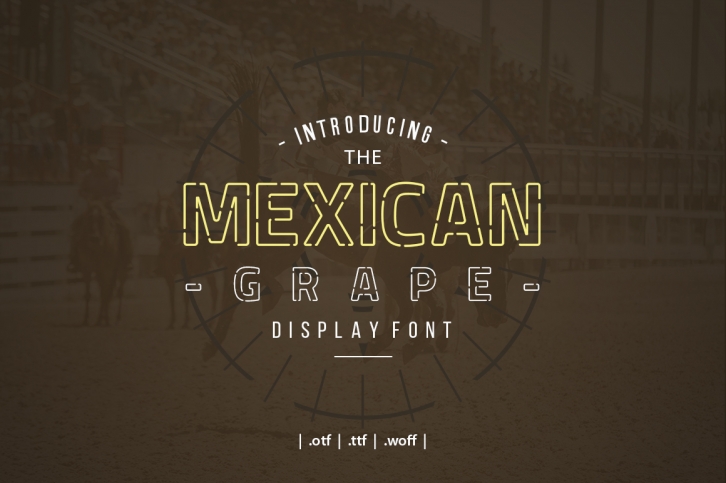
Mexican Grape Display Font Download
Mexican Grape Display is a gorgeous font that was realeased on September 22, 2018. The font can be used in many style contexts and design environments. Perfect for invitations, magazines, websites, logos, and more! It was designed by yantodesign and the file size is 17.46 MB. Thanks for checking out this font!